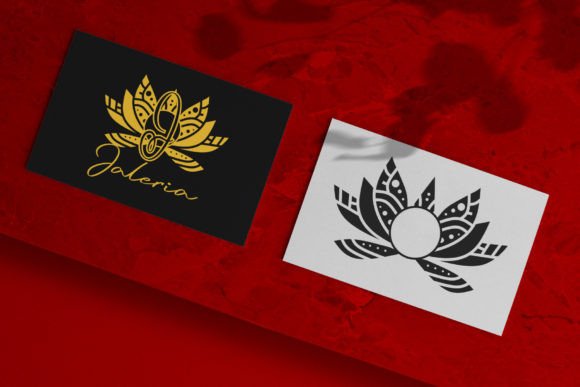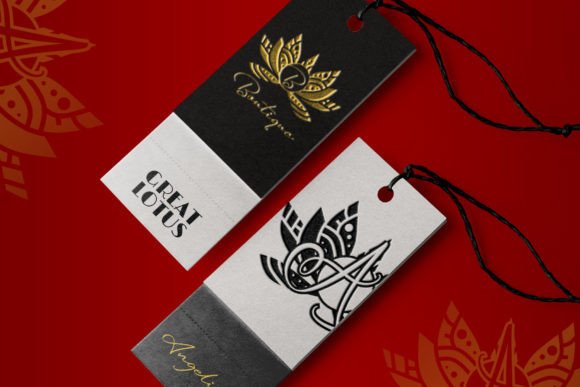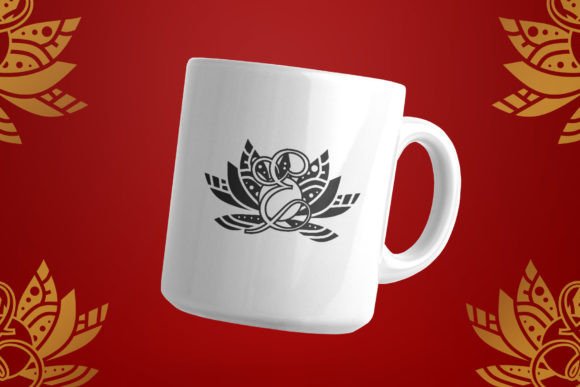
Introduction to Great Lotus Mandala Monogram Font
Have you ever found yourself lost in the intricate patterns and symmetries of mandala art, feeling a sense of serenity and inspiration wash over you? For designers, those moments can be the spark that ignites a new creative project. And now, that spark is within reach with the Great Lotus Mandala Monogram Font, a stunning and unique decorative font that brings the elegance of mandala art to your designs.
Whether you’re working on a logo, a craft project, or simply want to add a touch of sophistication to your digital collection, the Great Lotus Mandala Monogram Font is a valuable design resource that will elevate your work. With its high-quality design and transparent background, this font is perfect for any creative endeavor.
Key Features of Great Lotus Mandala Monogram Font
- High-quality design resource ideal for creative projects, such as wedding invitations, artwork, and digital graphics.
- Includes a transparent background for seamless integration into various design elements.
- Monogram font with intricate lotus mandala design, perfect for adding a touch of elegance to your work.
- Unique and intricate design elements, making it an ideal choice for designers seeking a distinctive look.
Honest Review: Great Lotus Mandala Monogram Font
I recently came across the Great Lotus Mandala Monogram Font and was excited to give it a try for my next design project. Overall, I was quite impressed with the quality and uniqueness of this font.
What works well: ✨ The font is extremely versatile and can be used for a wide range of creative projects, from wedding invitations to art prints. It’s also a high-quality font with clear, crisp lines and a transparent background, making it easy to work with. I also appreciate that it’s available for free download, which is a huge plus for designers on a budget.
What doesn’t work well: ⚠️ One limitation of this font is that it’s not suitable for all types of projects. The intricate design and ornate details may not be the best fit for simple or modern designs. Additionally, the font is quite large in size, which may make it difficult to use for smaller projects.
Overall impression: I’m really enjoying working with the Great Lotus Mandala Monogram Font and would definitely recommend it to designers looking for a unique and high-quality design resource. Just be sure to use it for the right type of project to get the most out of it.
- Perfect for creative projects with an Eastern or bohemian theme
- Can be used for invitations, art prints, and other decorative designs
- High-quality font with clear lines and transparent background
Some tips for getting the most out of the Great Lotus Mandala Monogram Font include using it for titles, headings, and other design elements. Common use cases include wedding invitations, birthday party decorations, and other creative projects that require a unique and eye-catching design element.